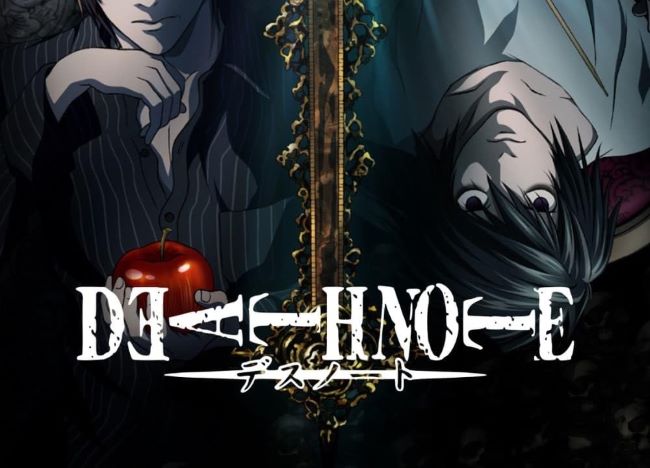
Death Note Font
The Death Note Font embodies the dark, mysterious, and gothic aesthetic of the series. Its sharp, elegant lettering conveys suspense, intellect, and tension, perfectly aligning with the psychological and dramatic themes of the anime and manga. Whether for fan art, posters, or titles, this font instantly evokes a chilling and intense atmosphere that mirrors the series’ gripping narrative and morally complex storyline.